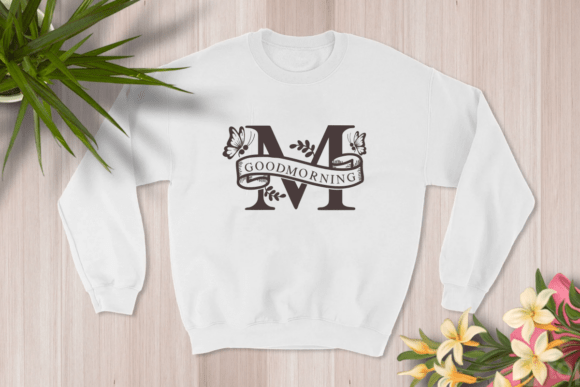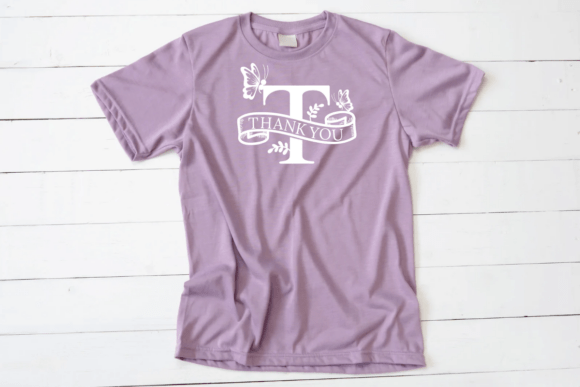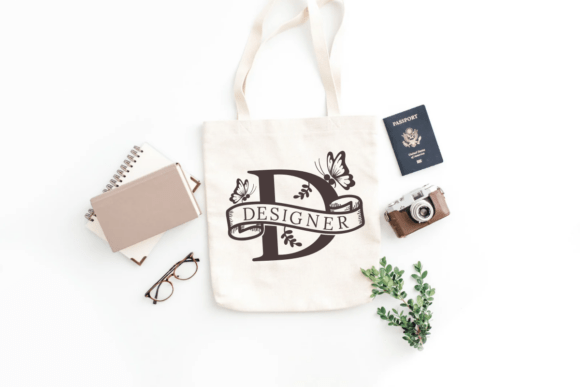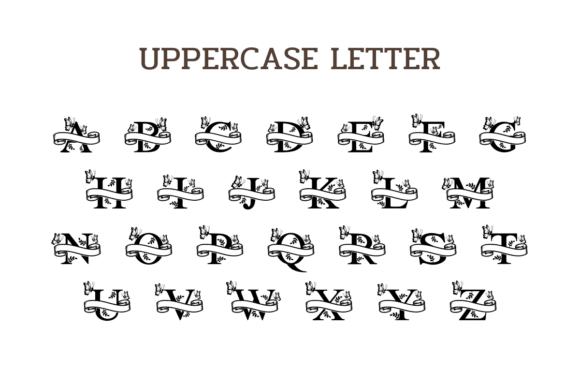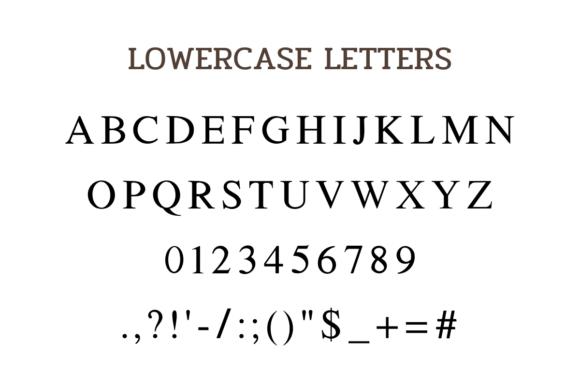
Have you ever been browsing through a vintage bookstore and stumbled upon an old diary with intricate, hand-drawn monograms? The way those delicate letters seemed to dance across the page, adding a touch of personality to every sentence, left you feeling inspired to create something similar.
Enter the Butterfly Monogram Font, a decorative font designed to bring a touch of whimsy and elegance to your designs. Whether you’re taking notes, writing a diary, or making greeting cards, this font is perfect for adding a personal touch to your creations. Its versatility makes it valuable for designers, who can use it to create a wide range of designs, from banners to social media posts, and everything in between.
Key Features of Butterfly Monogram Font
- Font Style: Elegant, Hand-Drawn Monogram Font
- Unique Characteristics: Includes various monogram styles, such as script, cursive, and modern, to cater to different design preferences
Butterfly Monogram Font Review
I recently had the chance to work with the Butterfly Monogram Font, and I’m excited to share my honest review with you. Here’s what I think works well:
- ✨ Unique and creative design: The butterfly-inspired monogram is a breath of fresh air in the world of typography. It’s perfect for adding a touch of whimsy to your designs.
- ✨ Versatile: The font comes in a range of weights and styles, making it easy to customize to fit your project’s needs.
- ✨ High-quality glyphs: The font’s glyphs are crisp and well-designed, ensuring that your text looks professional and polished.
However, I do have some limitations to share:
- ⚠️ Limited language support: The font only supports a few languages, which may be a concern for projects that require multilingual support.
- ⚠️ Not ideal for body text: The font’s design makes it better suited for titles and headings, rather than body text.
Overall, I think the Butterfly Monogram Font is a great addition to any designer’s toolkit. Its unique design and versatility make it perfect for projects that require a touch of creativity. However, it’s not a one-size-fits-all solution, and designers should be aware of its limitations before using it.
Use the Butterfly Monogram Font to add a touch of elegance to your designs, particularly for wedding invitations, baby shower invitations, or any other occasion that requires a whimsical and feminine touch.
The Butterfly Monogram Font is ideal for:
Baby shower invitations and decorations
Personalized gift tags and labels
Wedding website and social media graphics